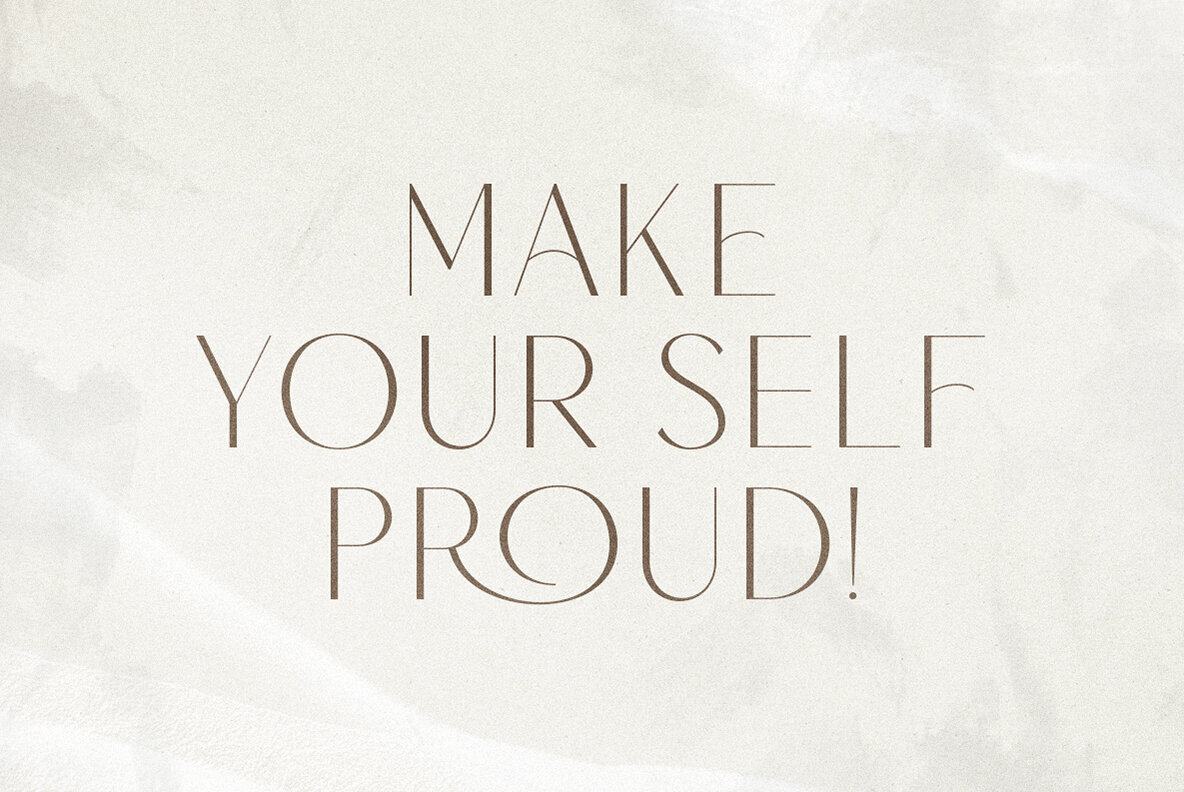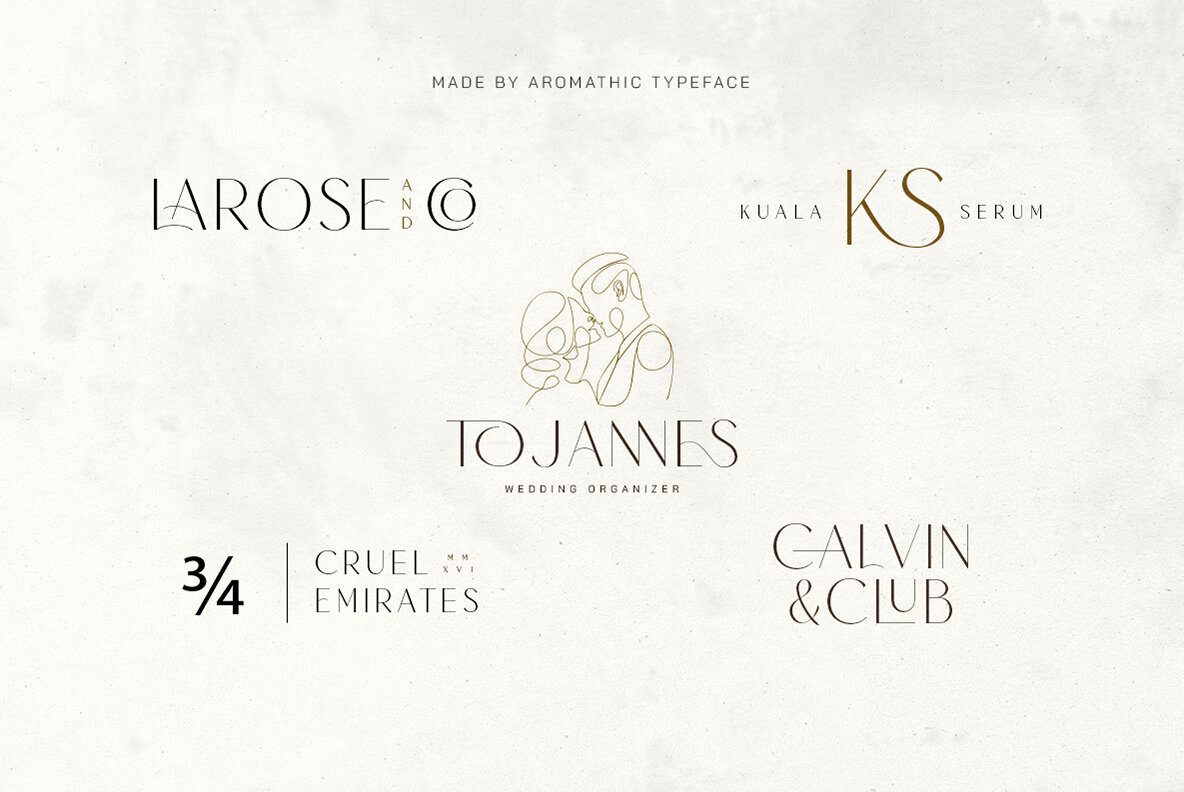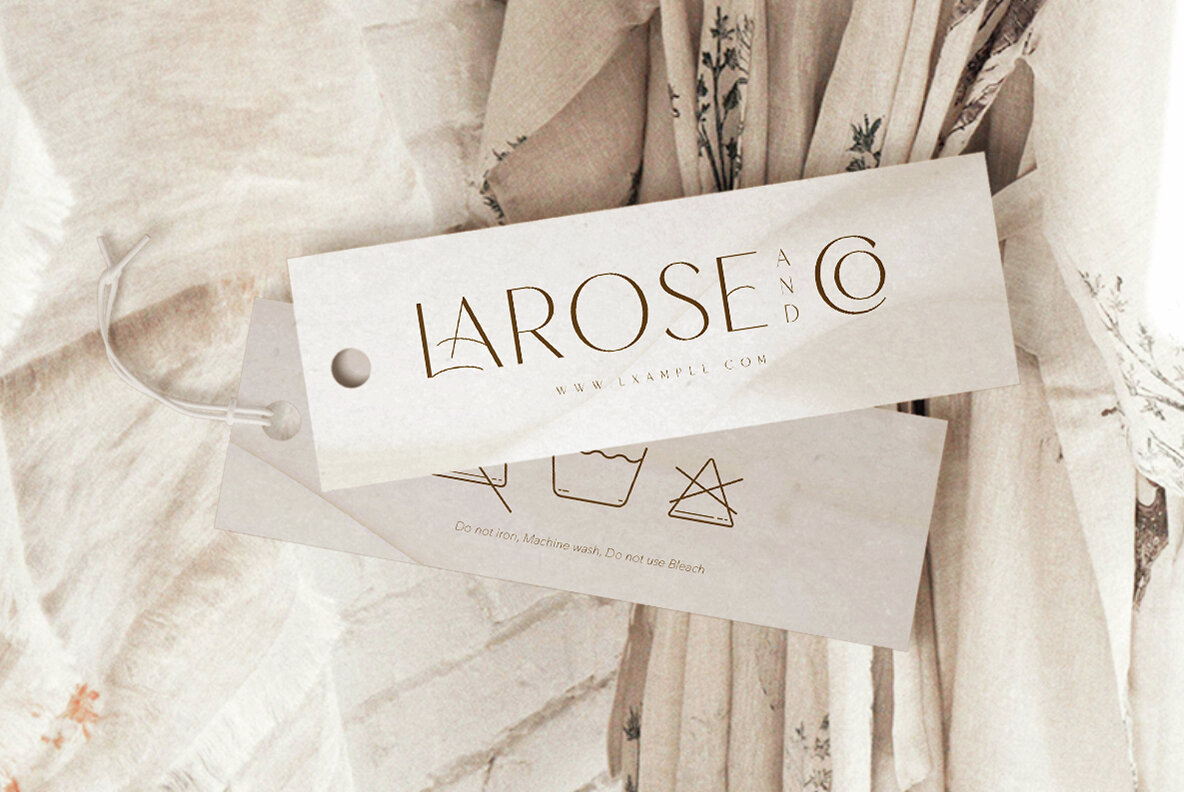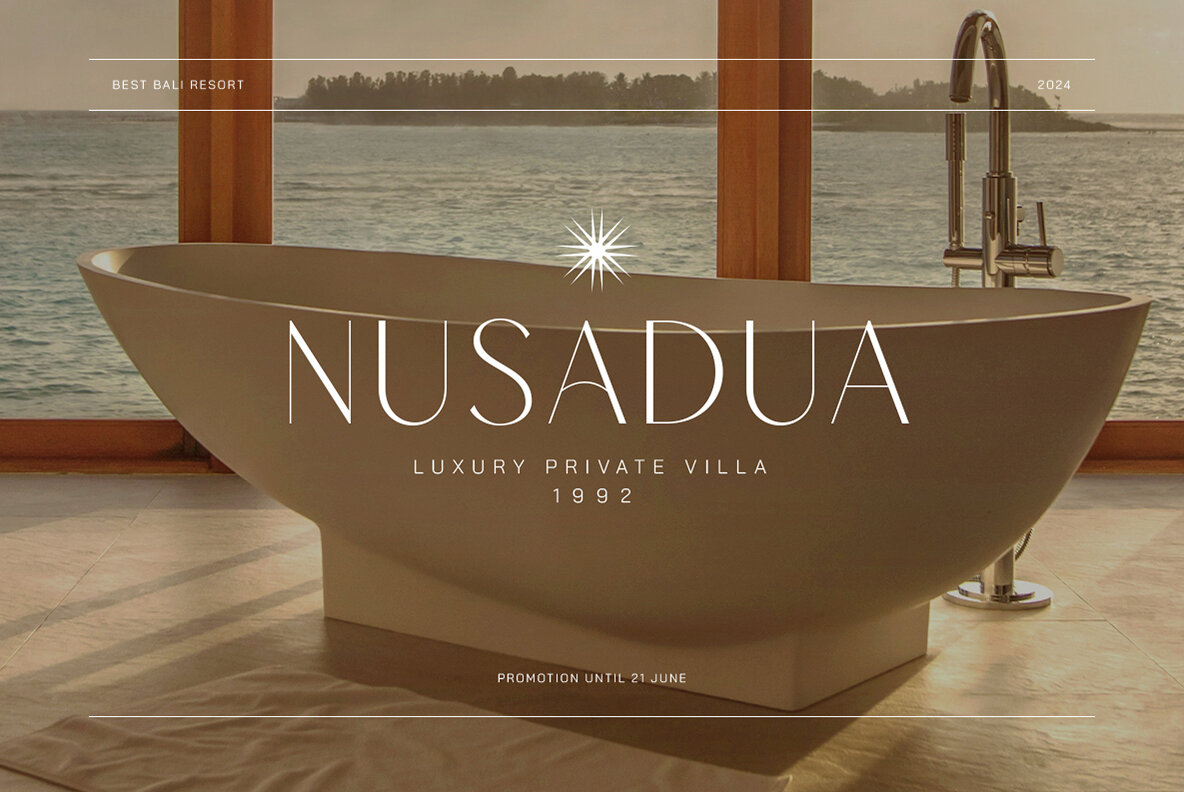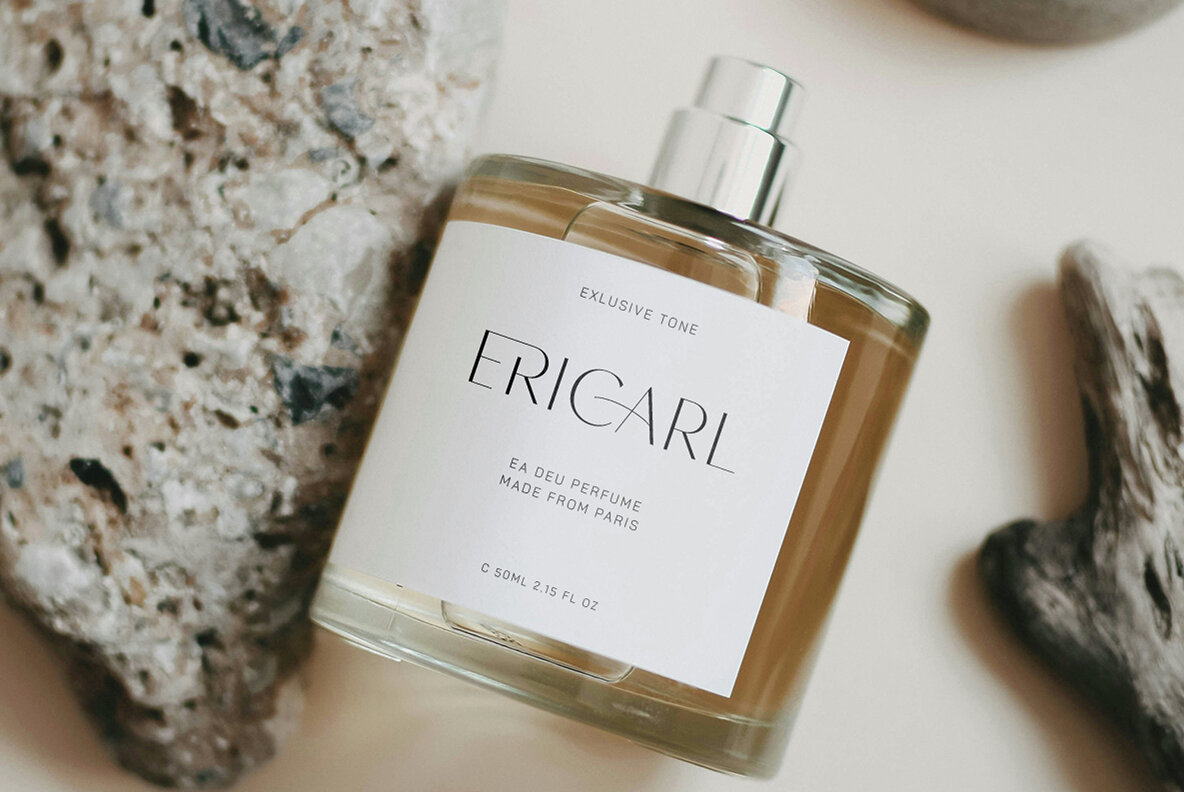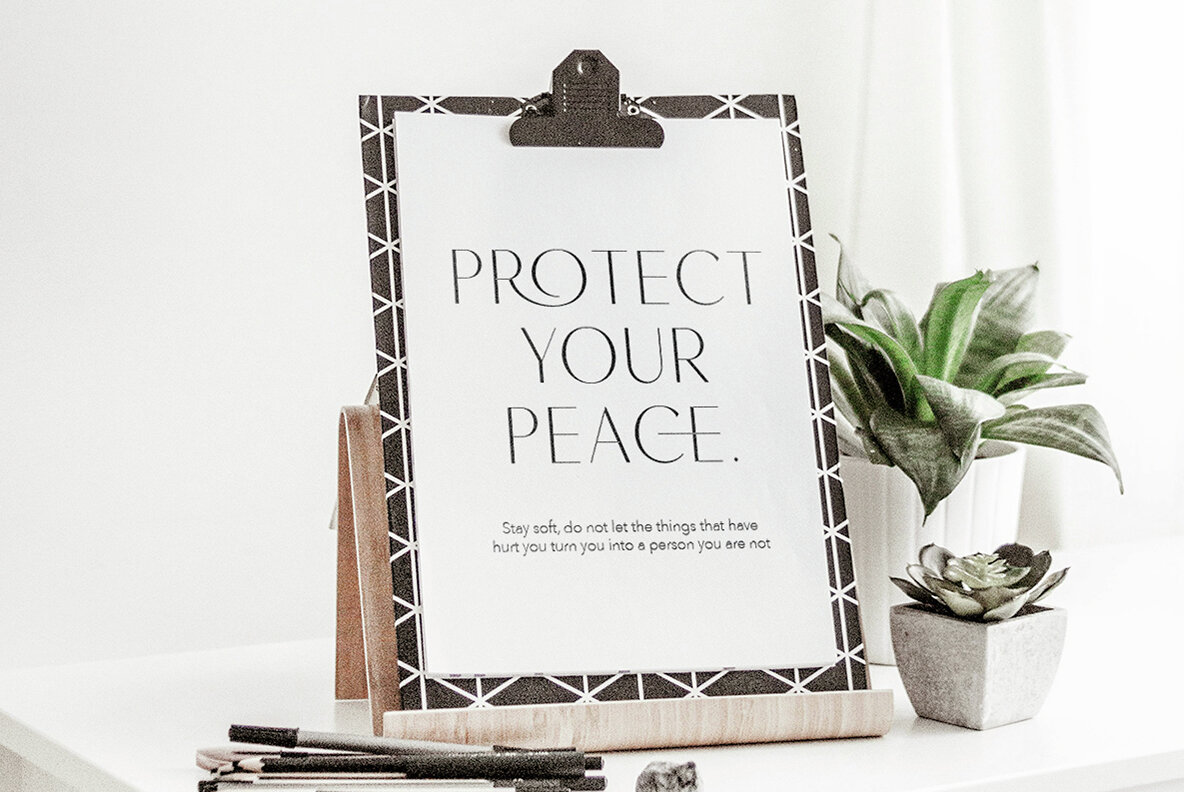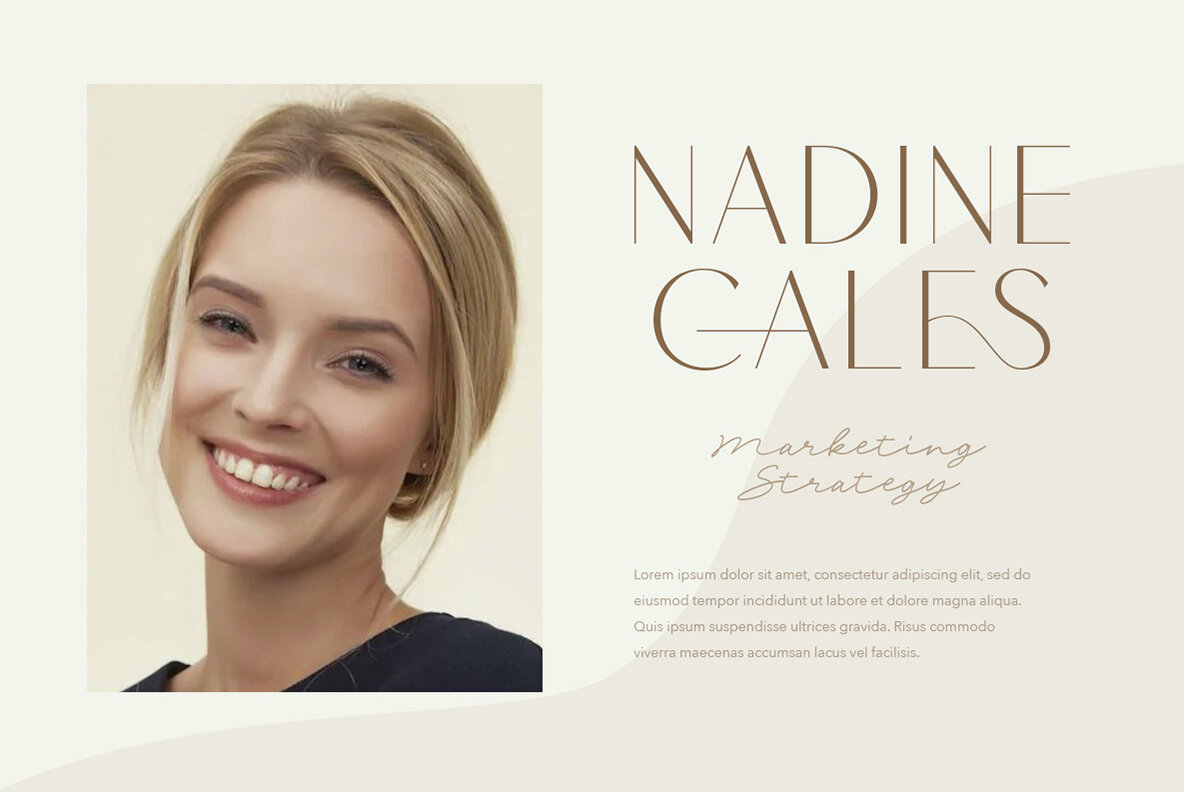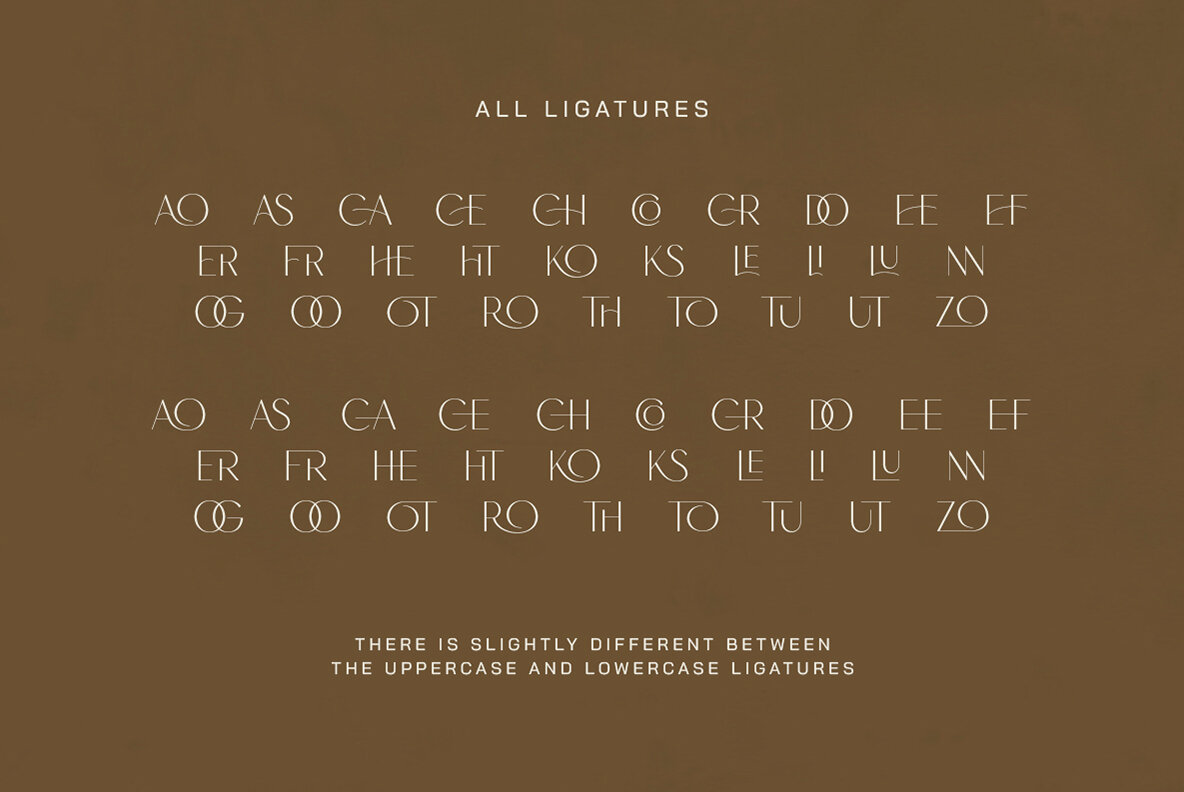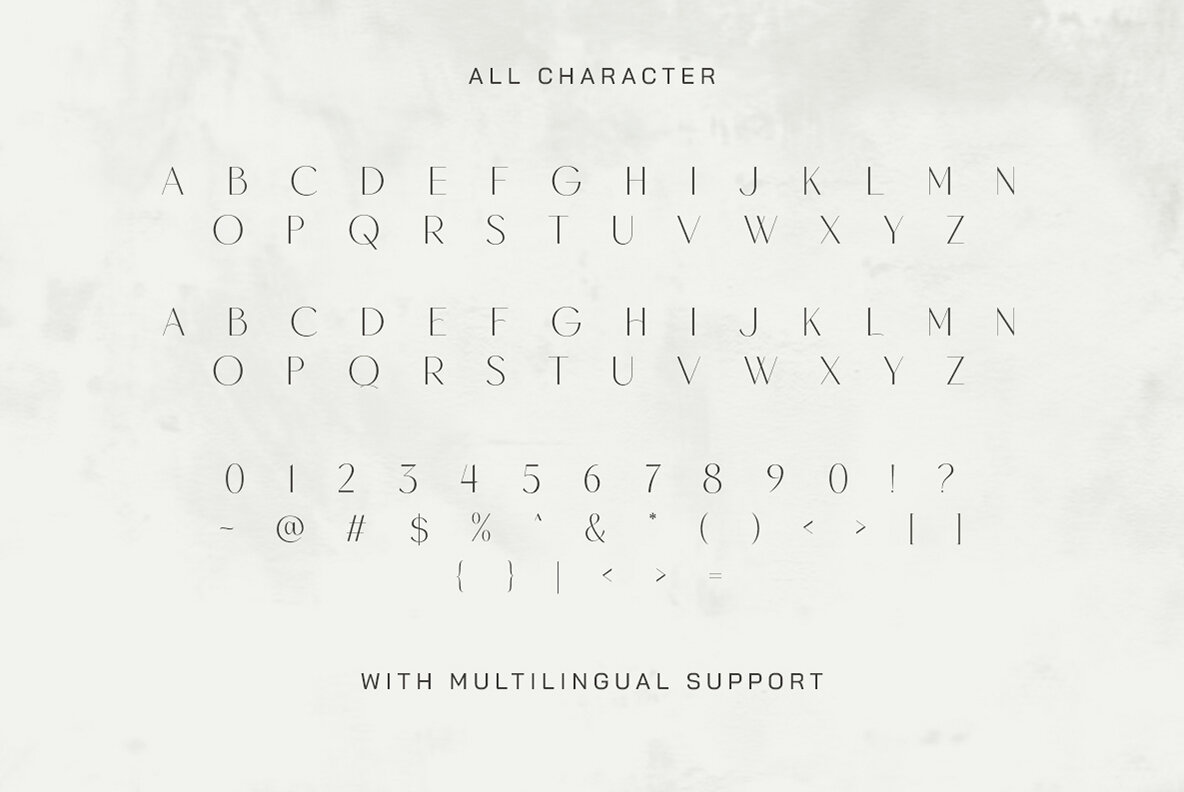
Carest Font
Carest Regular
Carest is a minimalist and stylish sans with bunch of ligatures. With different shape between uppercase and lowercase, you can choose for your needs. This font is suitable for any project especially for project that need to looks elegant and luxurious. With beautiful ligatures, this font will make your project more stunning and stand out. This font also support multi language!